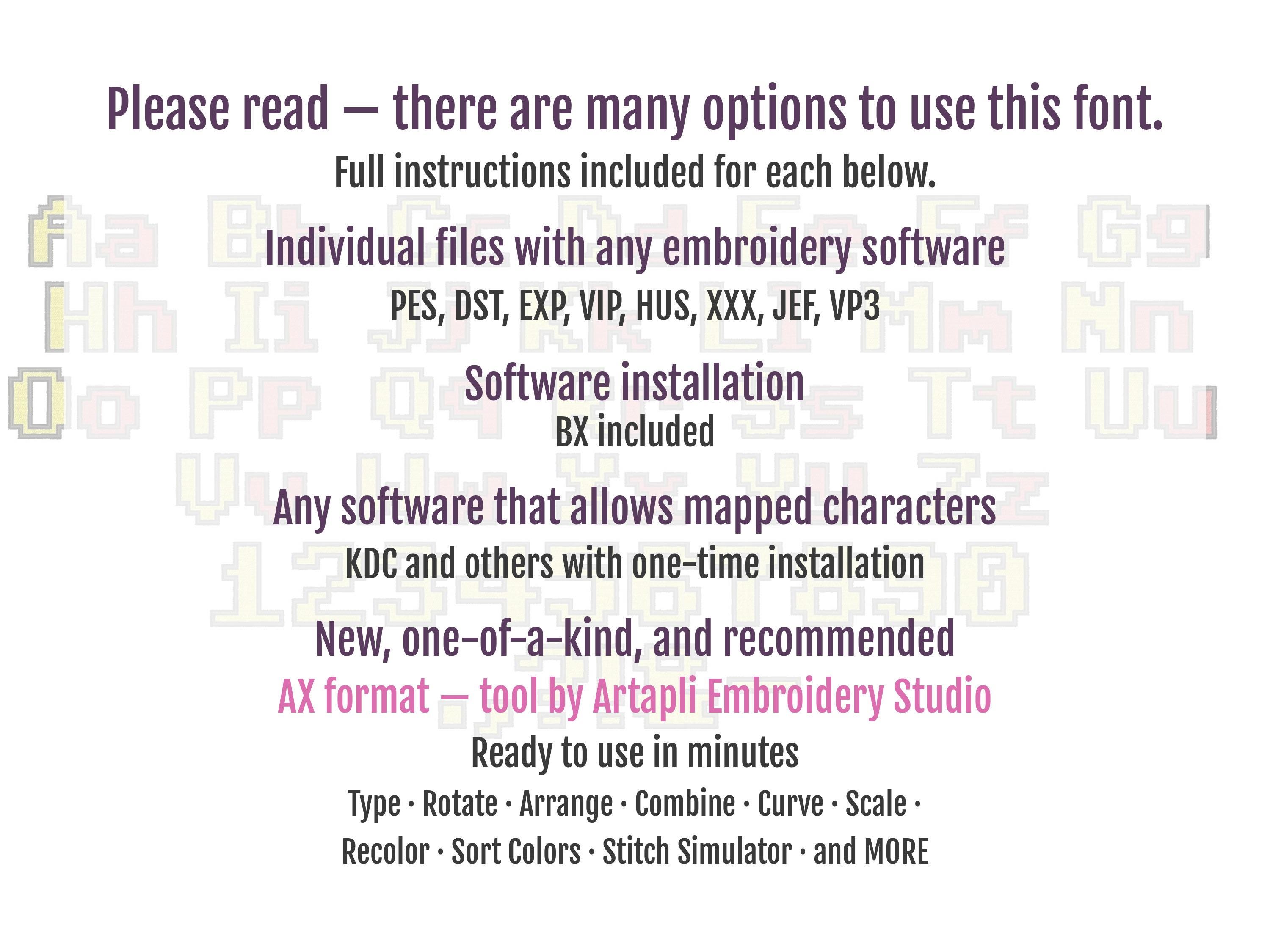
Fill stitch Miner Bricks Pixel Font machine embroidery design alphabet monogram mini pixel font bricks INSTANT DOWNLOAD included BX
Whole alphabet A-Z, uppercase and lowercase letters
numbers 0-9 and special punctuation marks